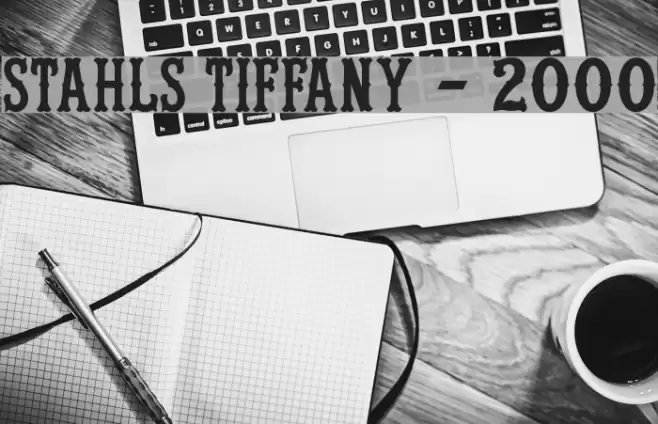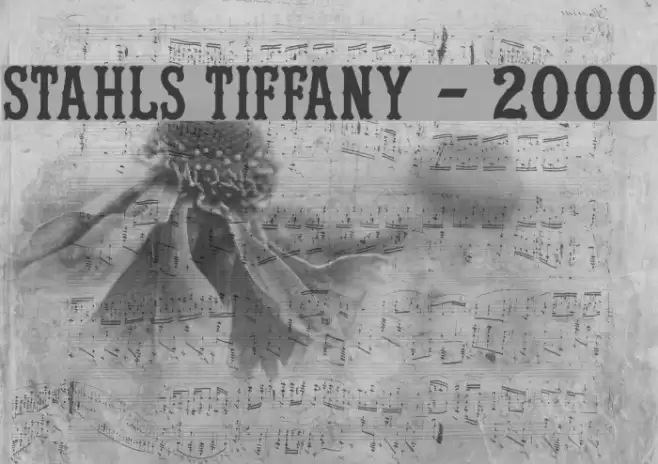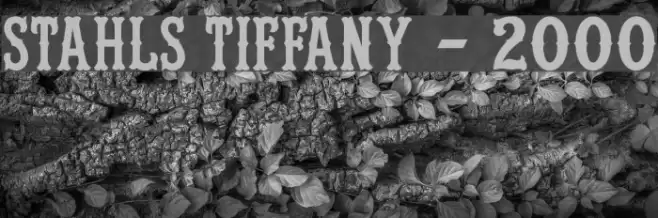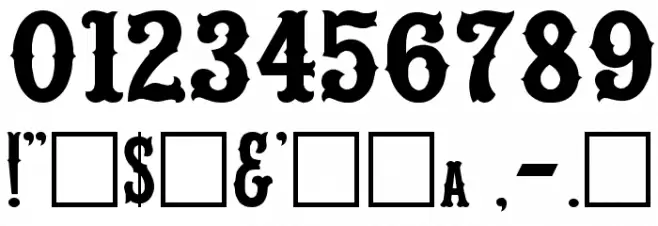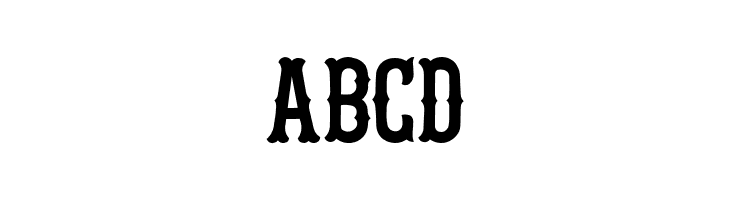
Stahls Tiffany - 2000 Font
Stahls Tiffany - 2000 Description
This font features a bold and decorative style with strong, thick strokes and a vintage flair. The characters are designed with intricate detailing, giving them a unique and ornate appearance. The uppercase letters are particularly striking, with pronounced serifs and a slightly condensed form that adds to their visual impact. The numbers and special characters maintain the same decorative quality, ensuring consistency across all elements. This font is ideal for projects that require a touch of elegance and historical charm.
A bold, decorative font with vintage flair and intricate detailing from Western fonts.
- Proposed Projects: Ideal for vintage-themed posters, branding, signage, and invitations.
- Overall Style: Vintage